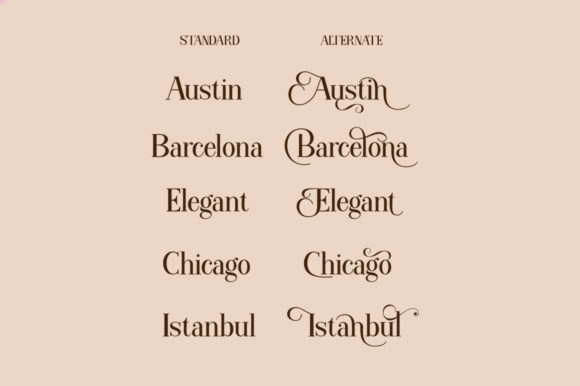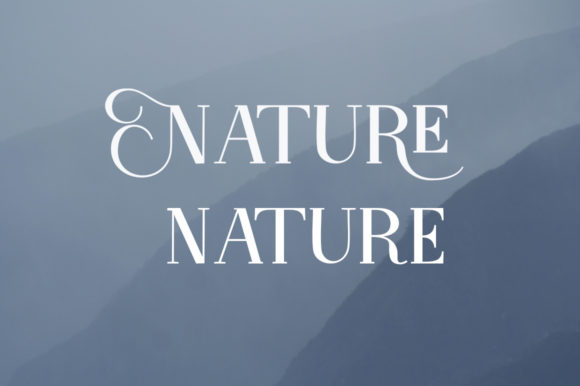
Straight Font
About Straight Font
Straight is a lovely and elegant duo font (serif and script). Incredibly versatile, this font fits a wide pool of designs, elevating them to the highest levels. Add this font to your favorite creative ideas and notice how it makes them come alive!